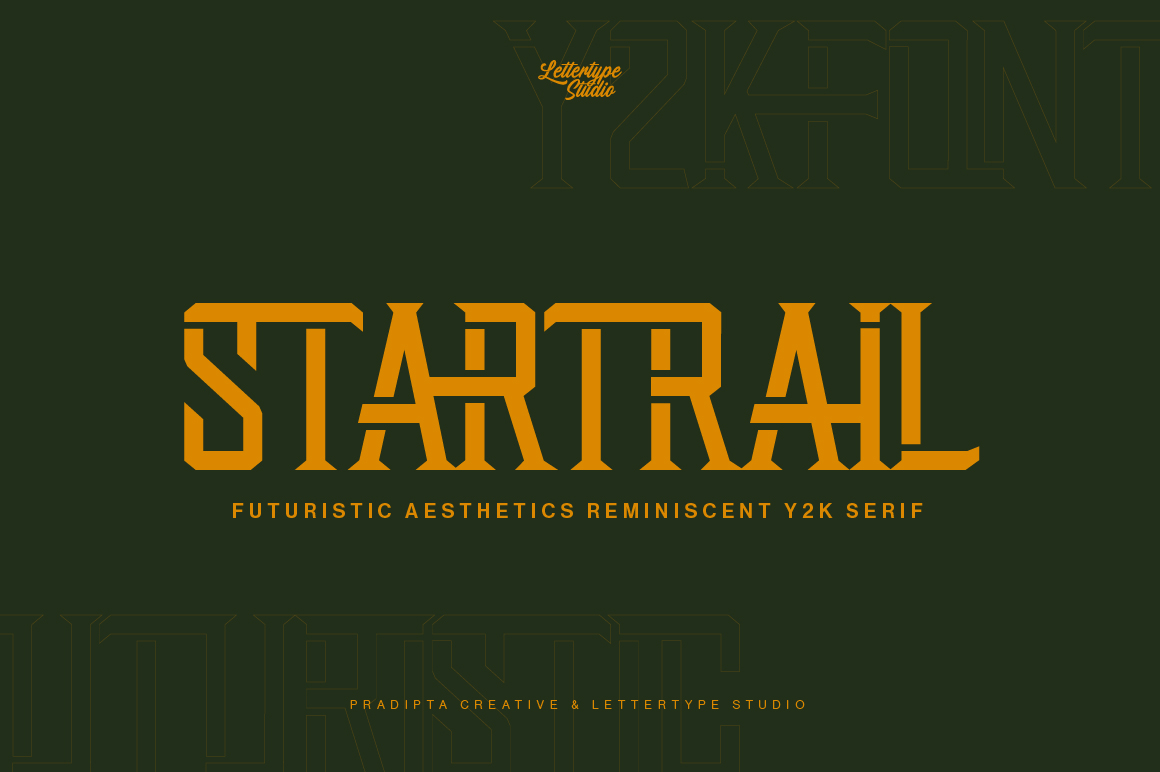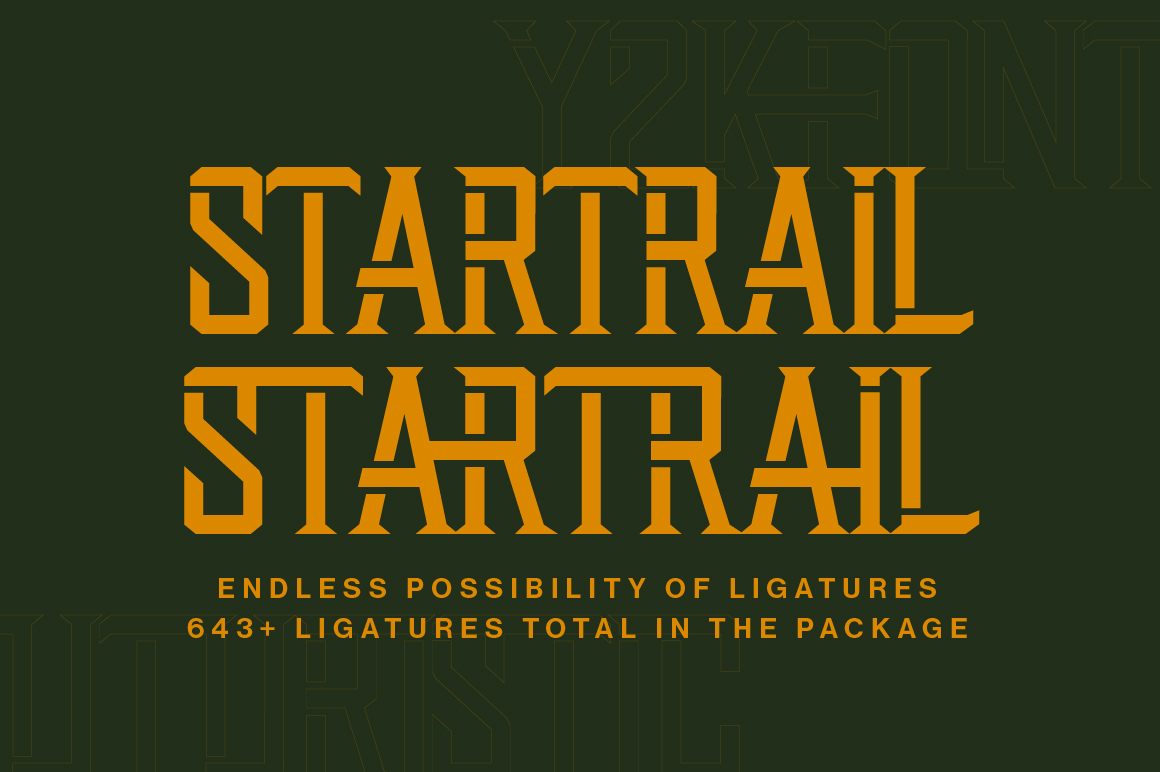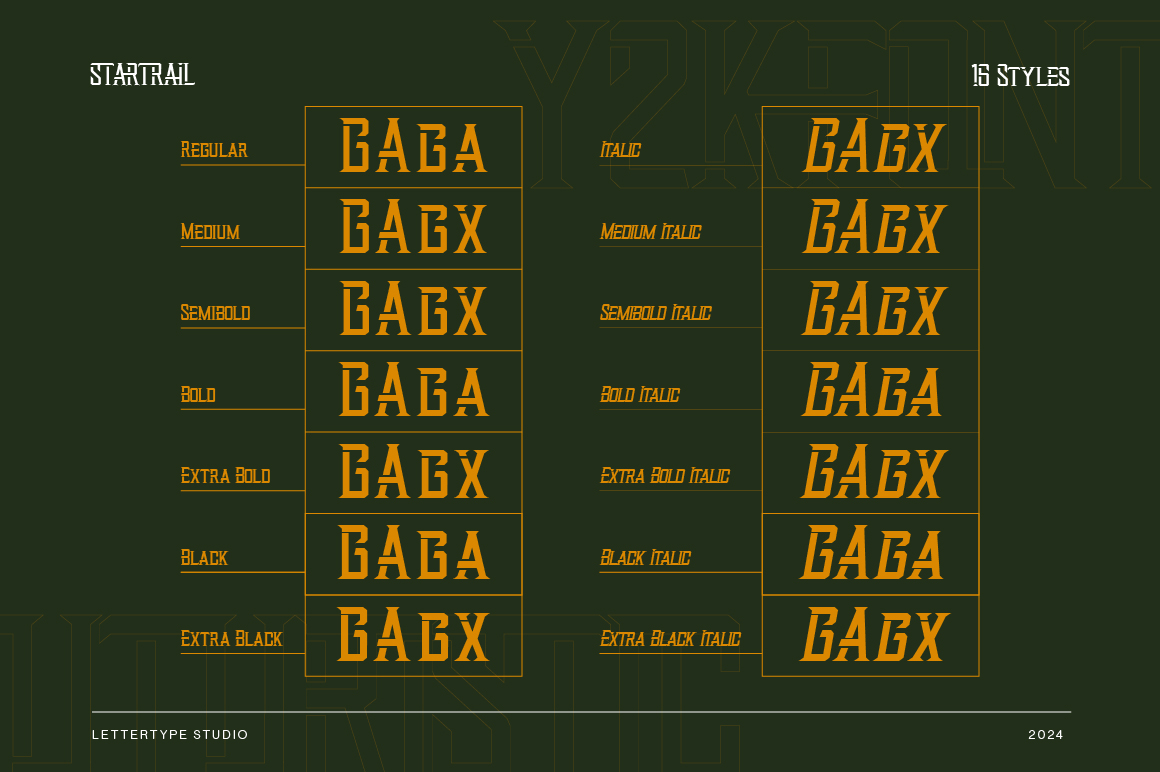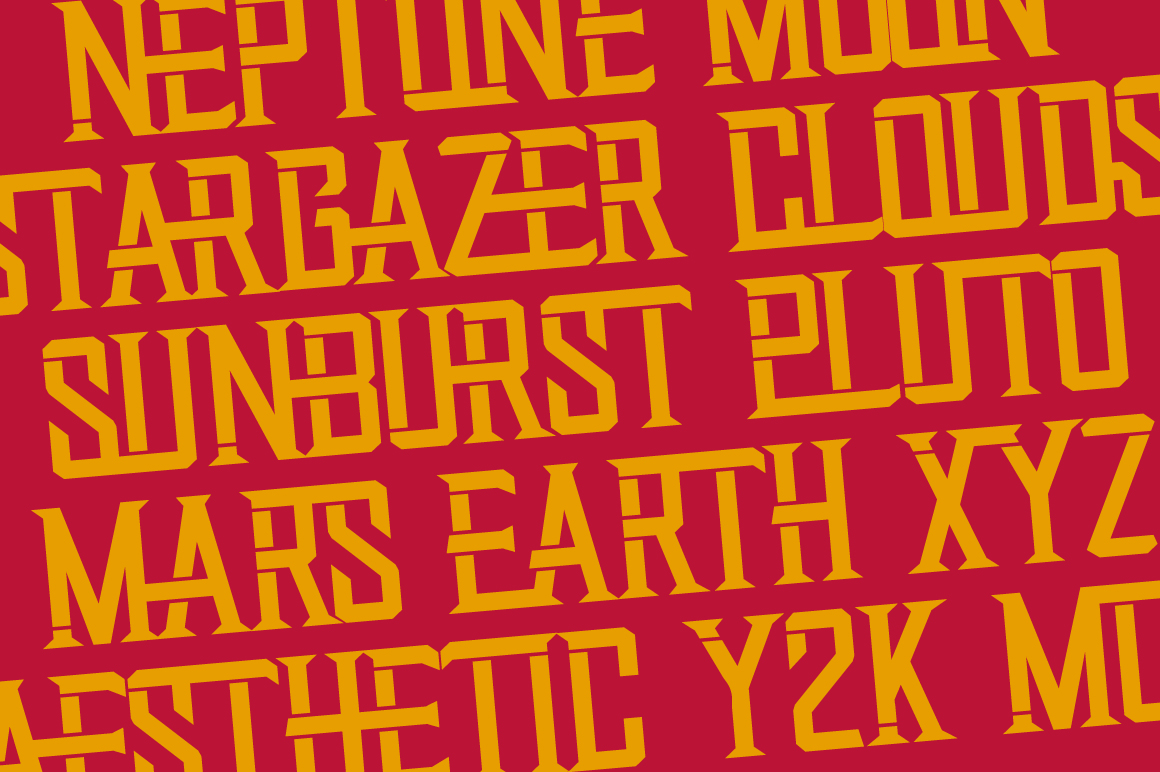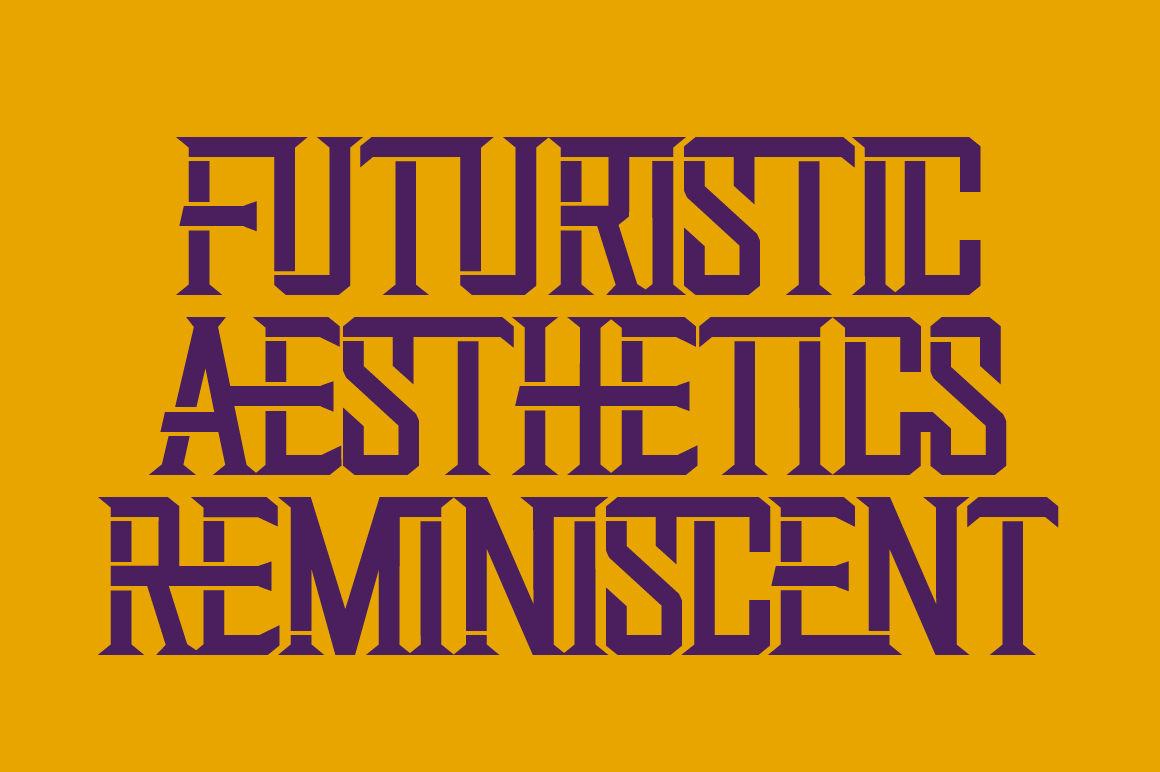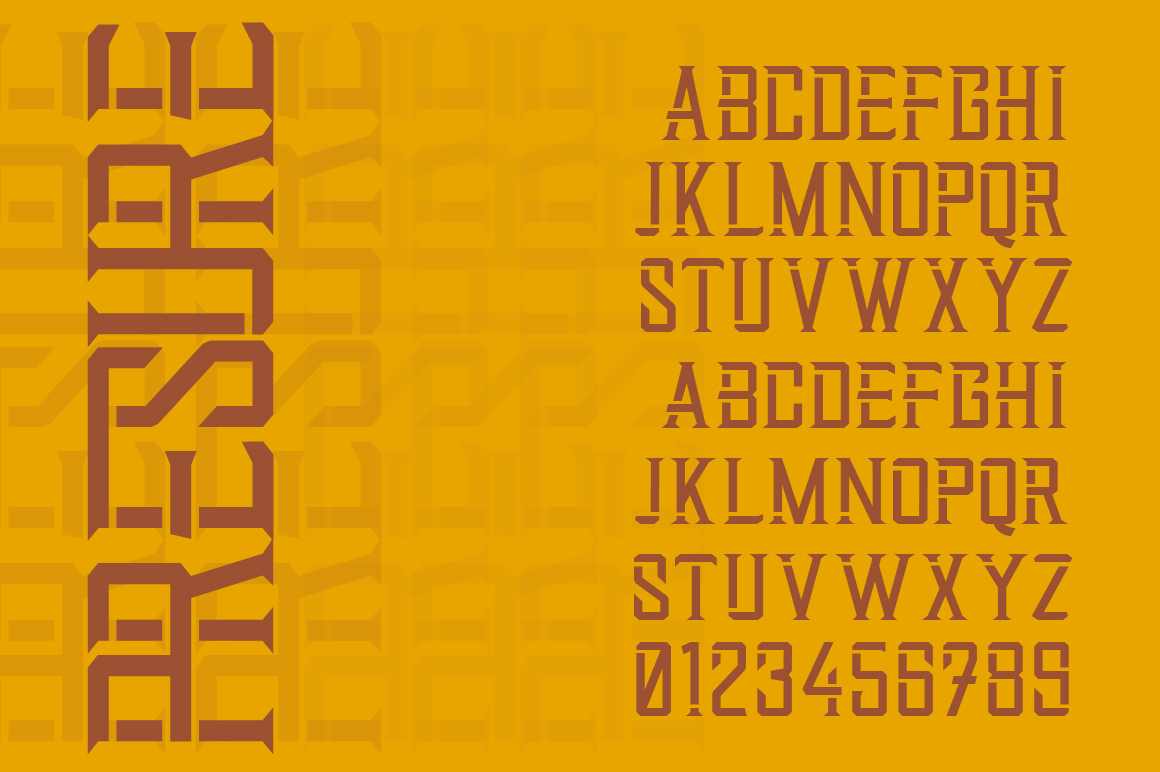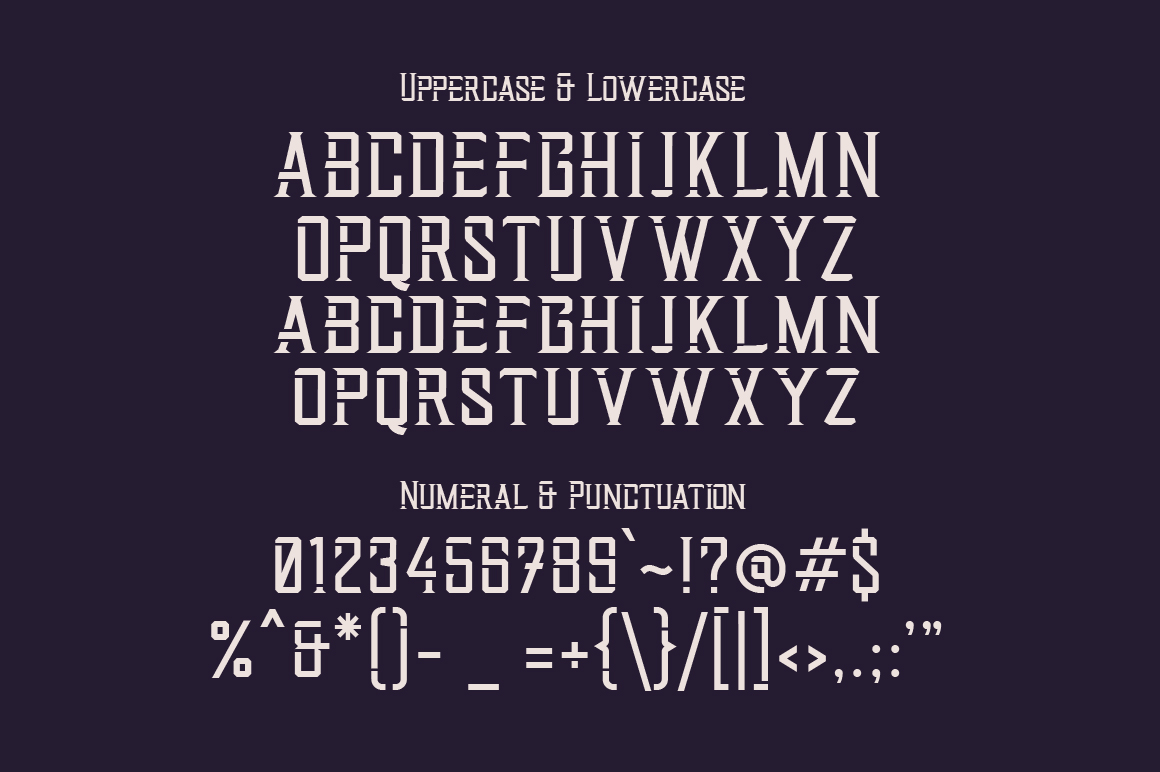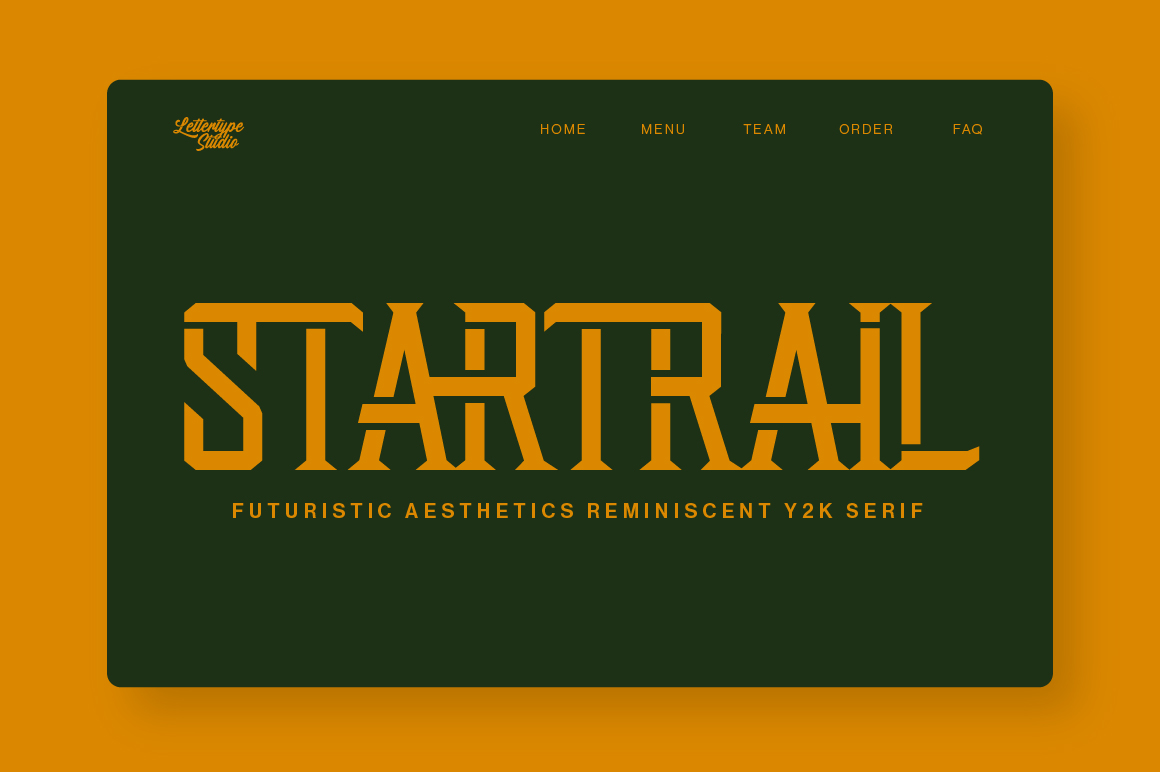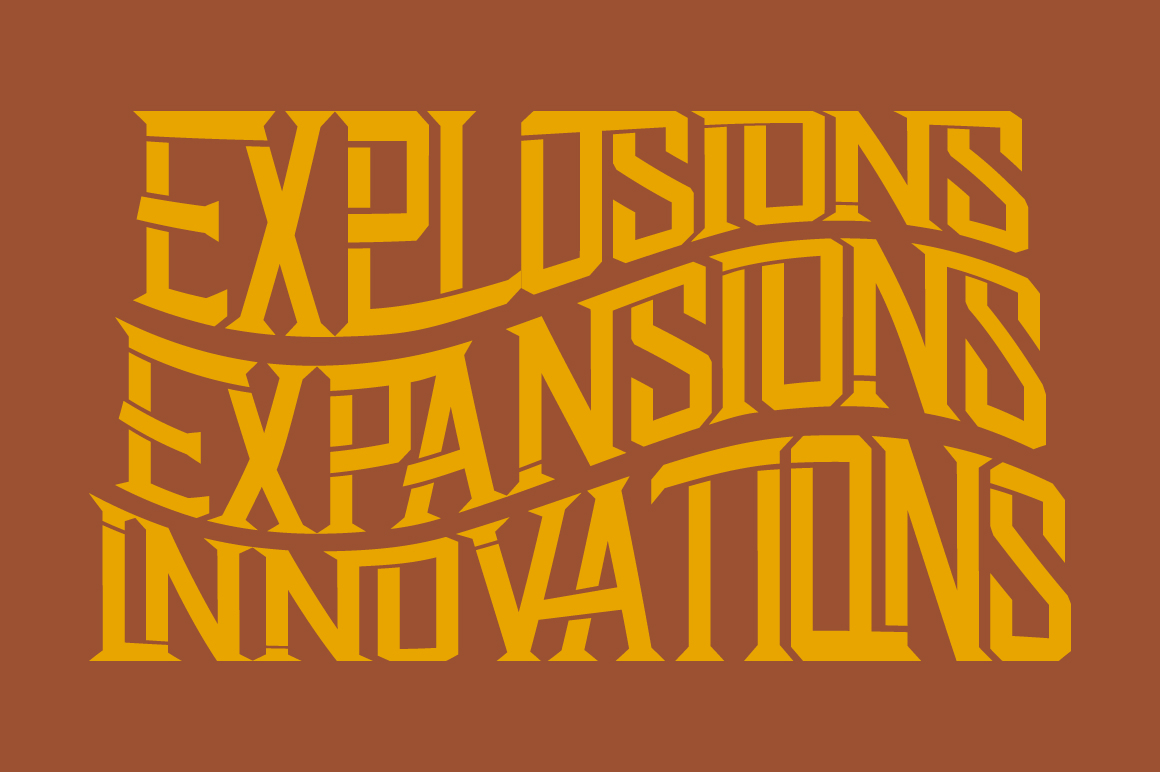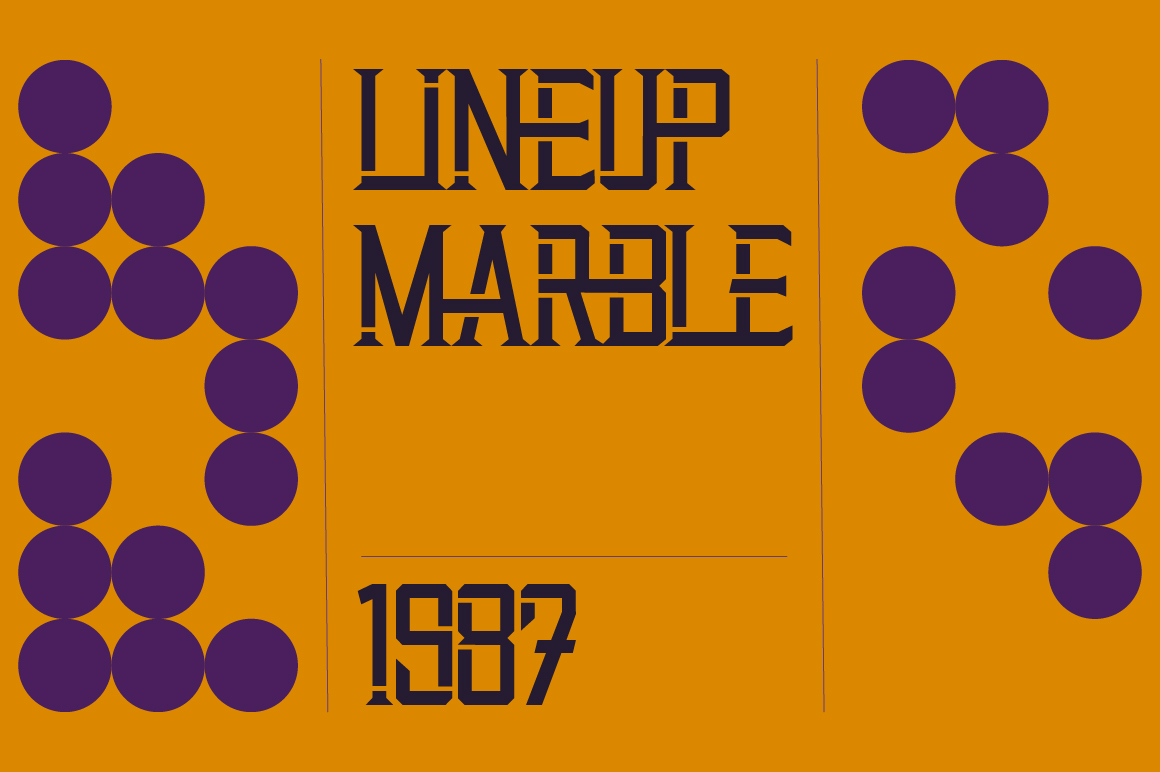
Startrail is a Y2K-inspired serif font family that fuses classic elegance with futuristic energy. Designed to capture the digital optimism of the late 1990s and early 2000s, it features exaggerated serifs and expressive details that radiate style and nostalgia.
Perfect for fashion branding, posters, and editorial layouts, Startrail brings bold personality and a modern-retro aesthetic to your projects. Its distinctive letterforms make it ideal for designers seeking a font that feels both nostalgic and forward-thinking — a true statement piece in any creative work.